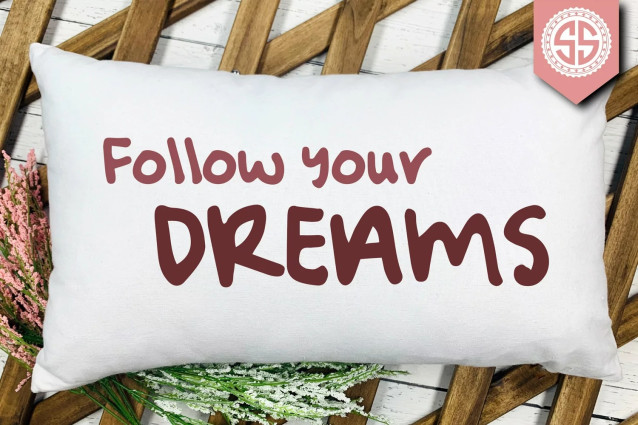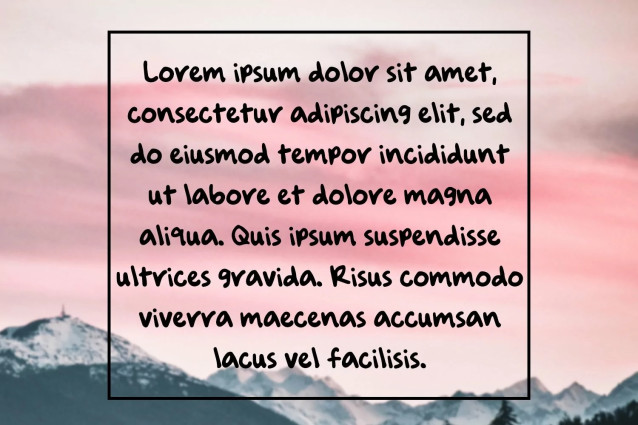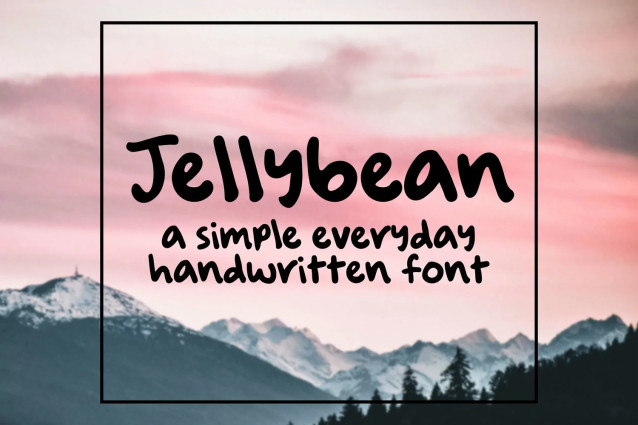
Jellybean – Simple Handwritten Font
Jellybean – Simple handwritten font, a sweet and friendly handwritten font. Cute and fun, this font is ideal for wedding invitations, comics, or any other design that needs a little fun touch!